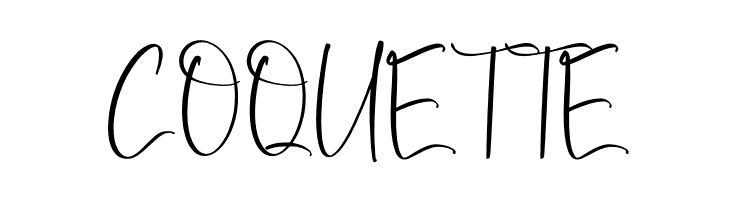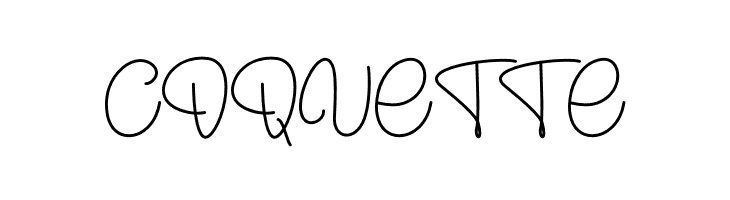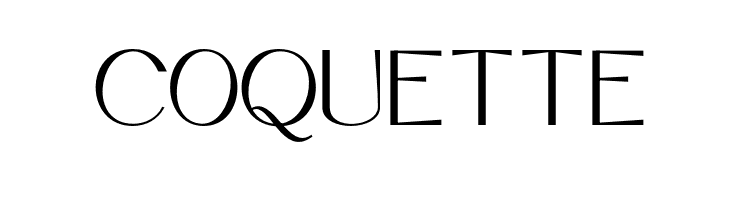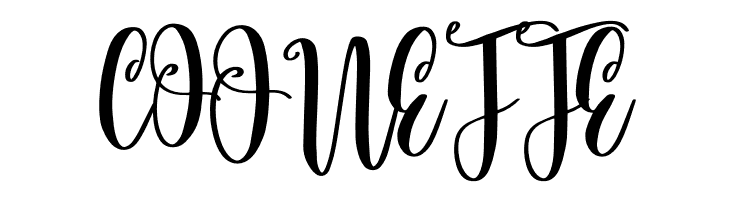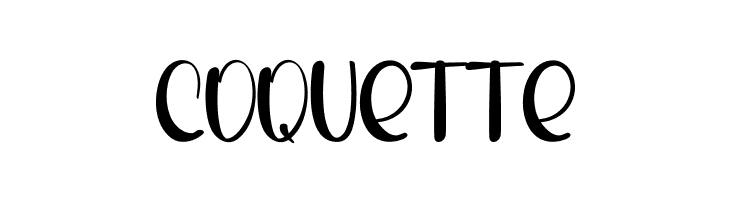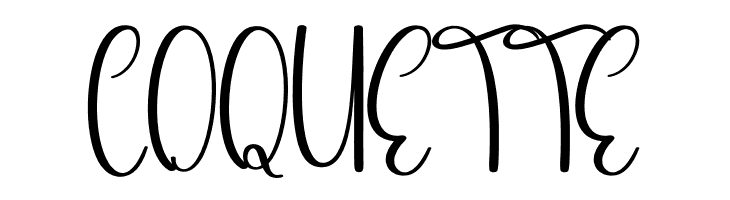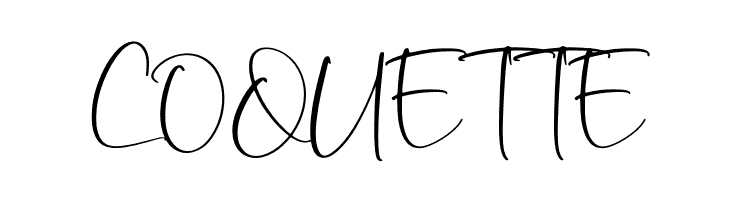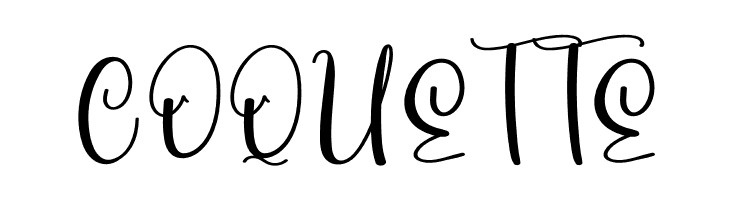
A playful, hand-drawn sans-serif with rounded, informal shapes.
A whimsical, handwritten script with tall, narrow, and flowing letterforms.
Casual, connected handwritten script with playful loops.
A high-contrast, geometric sans-serif with artistic, modern flair.
Expressive, modern script with bold, sweeping strokes and decorative flair.
A lively, brush-script font with a hand-lettered, dynamic style.
Playful handwritten script with bold, rounded strokes and whimsical curves.
Tall, whimsical handwritten script with playful curves.
A whimsical, handwritten script with tall, narrow, and fluid letterforms.
Playful handwritten script with tall, narrow letters and decorative swashes.